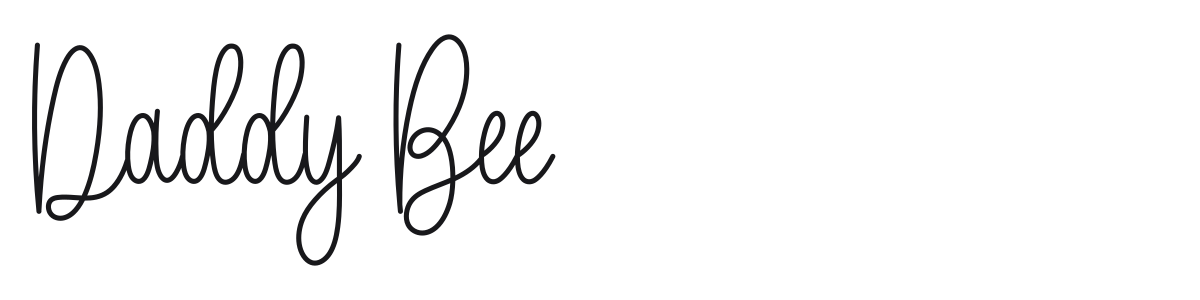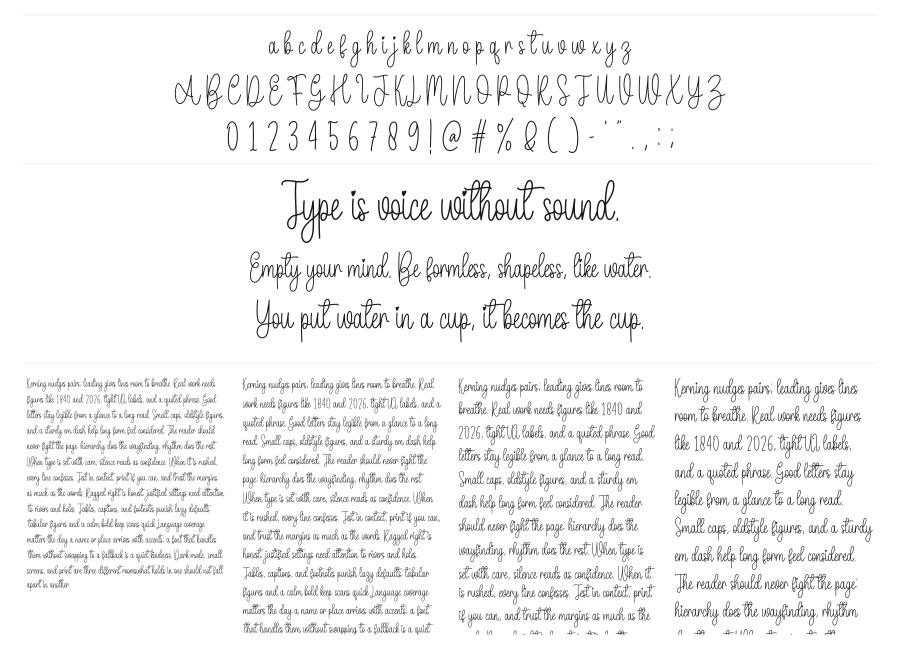
Daddy Bee
Daddy Bee is a casual connected handwriting script with thin, looping strokes and a naturally informal rhythm. Its relaxed flow suits wedding invitations, packaging labels, and social media graphics where a personal, hand-penned touch matters. The consistent lightweight stroke keeps it airy and legible at headline sizes.